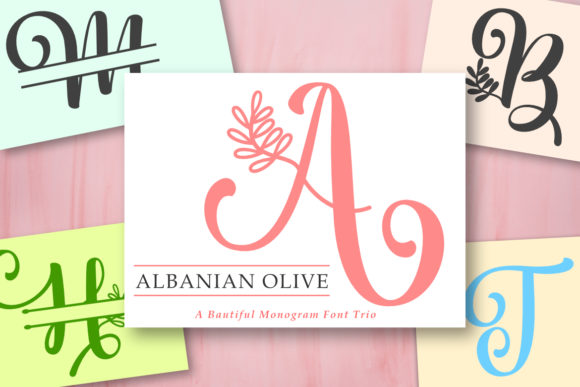
The Elegance of Albanian Olive Monogram Font: A Designer’s Delight
I’ll never forget the time I was working on a wedding invitation project, and my client asked for a font that was elegant, delicate, and had a personal touch. I scoured the internet, tried countless fonts, but nothing seemed to fit the bill. That was until I stumbled upon the Albanian Olive Monogram Font. It was love at first sight! 💕
This beautiful handwritten font has been a game-changer for my designs, and I’m excited to share its charm with you. In this article, we’ll dive into the world of Albanian Olive Monogram, exploring its features, how to use it, and what makes it so special.
- ✅ Elegant and delicate handwritten style, perfect for wedding invitations, thank you cards, and more
- ✅ Highly versatile, suitable for logos, business cards, quotes, and greeting cards
- ✅ Easy to read and understand, even at small font sizes
- ✅ Unique monogram feature adds a personal touch to any design
- ⚠️ Some users may find the font a bit too delicate for certain design projects
- ⚠️ Limited availability of stylistic alternates, which may limit creative freedom
The Story Behind Albanian Olive Monogram
Albanian Olive Monogram was designed with love and care by a talented type designer. The font was inspired by traditional Albanian calligraphy and the beauty of olive trees. The result is a unique and elegant font that adds a personal touch to any design.
Q: Is Albanian Olive Monogram suitable for body text?
A: While Albanian Olive Monogram is a beautiful font, it’s best suited for headlines, titles, and short paragraphs. For body text, a clearer font may be more suitable.